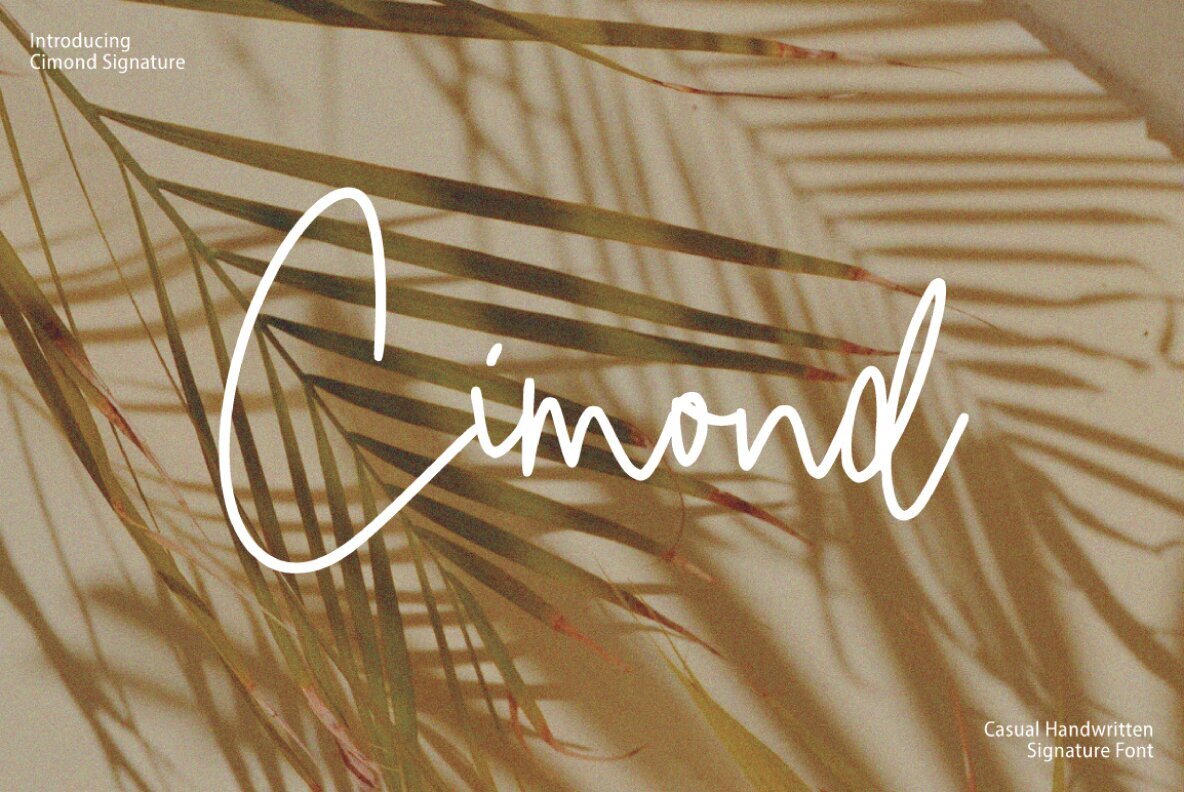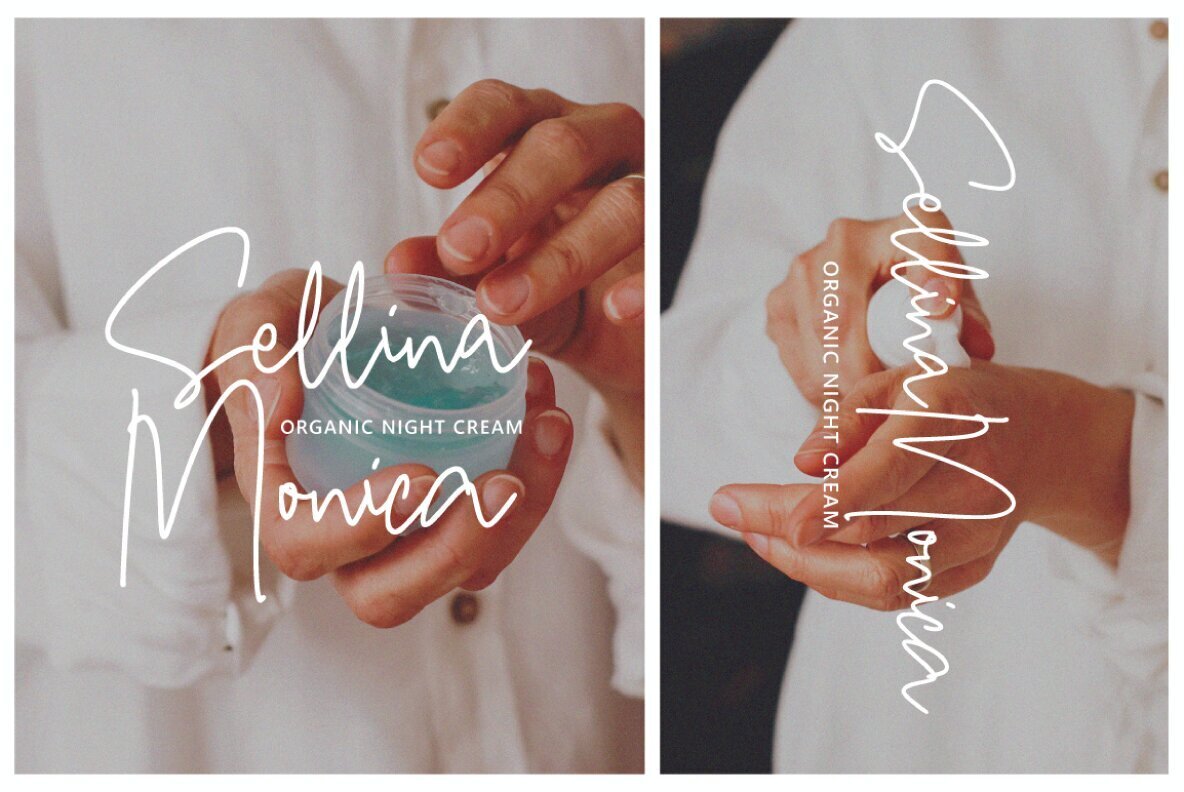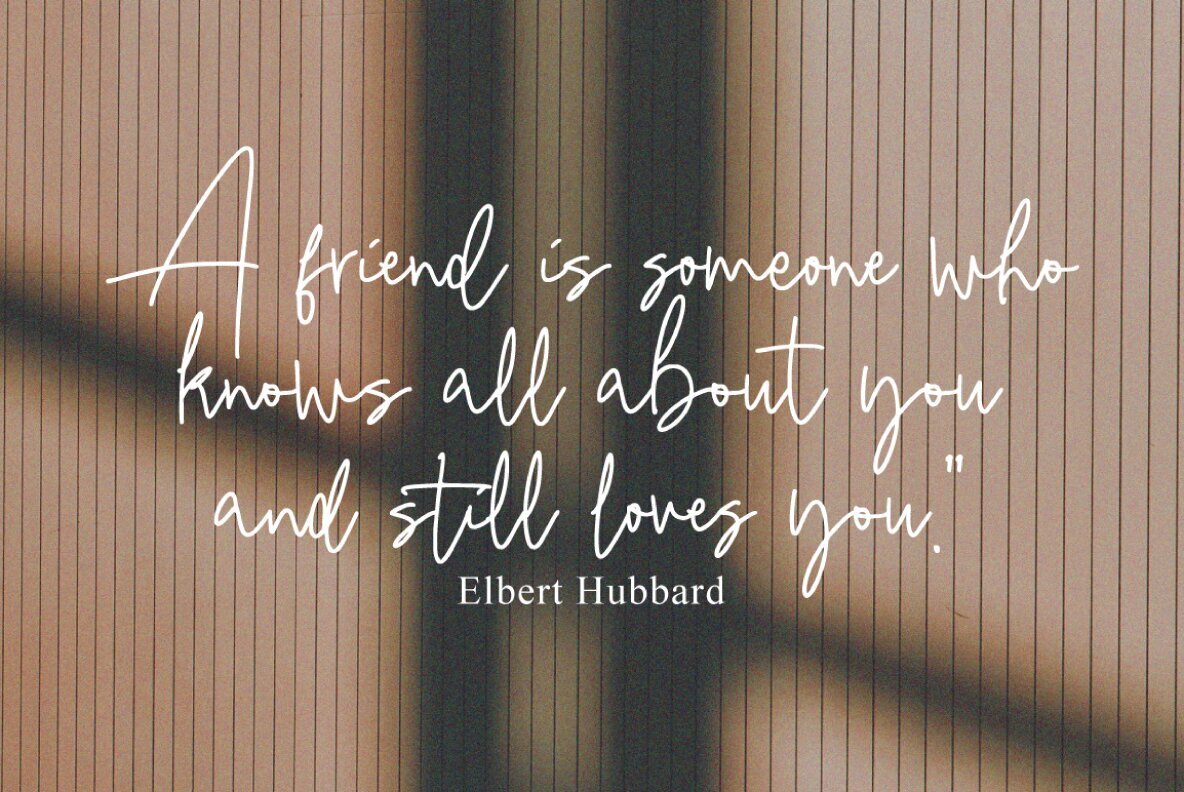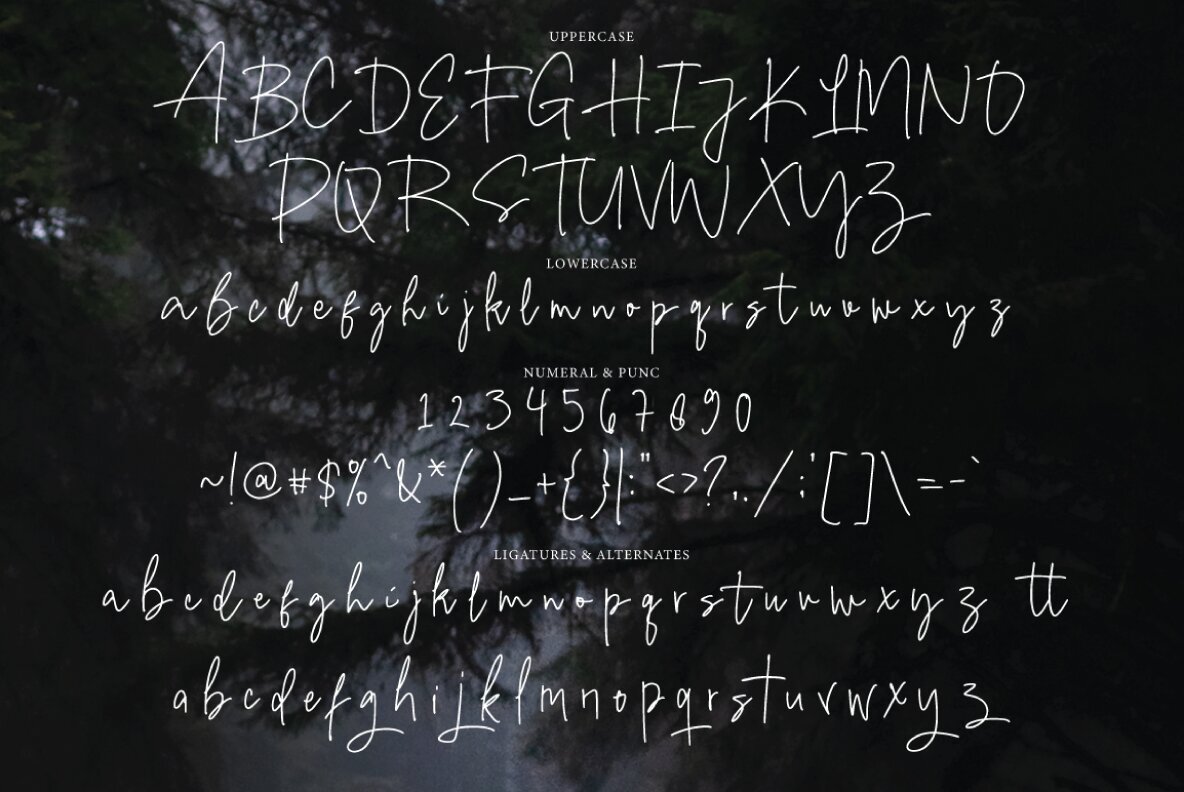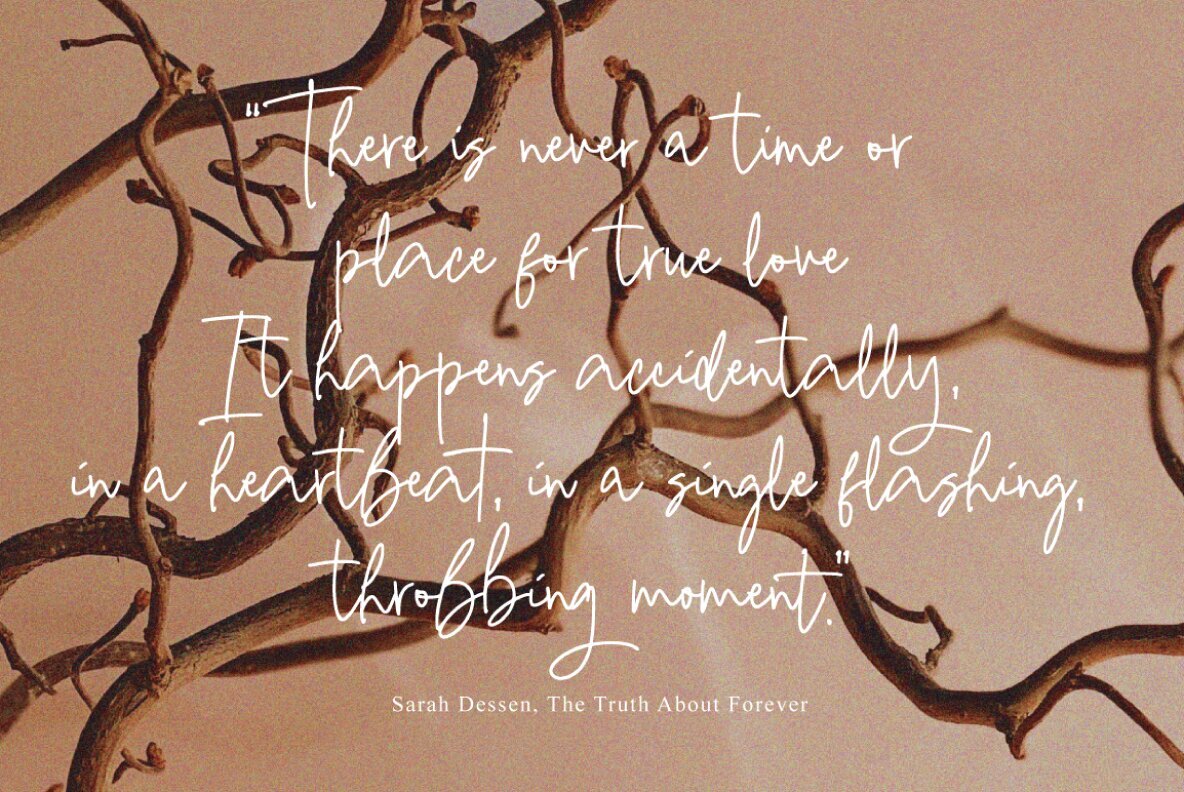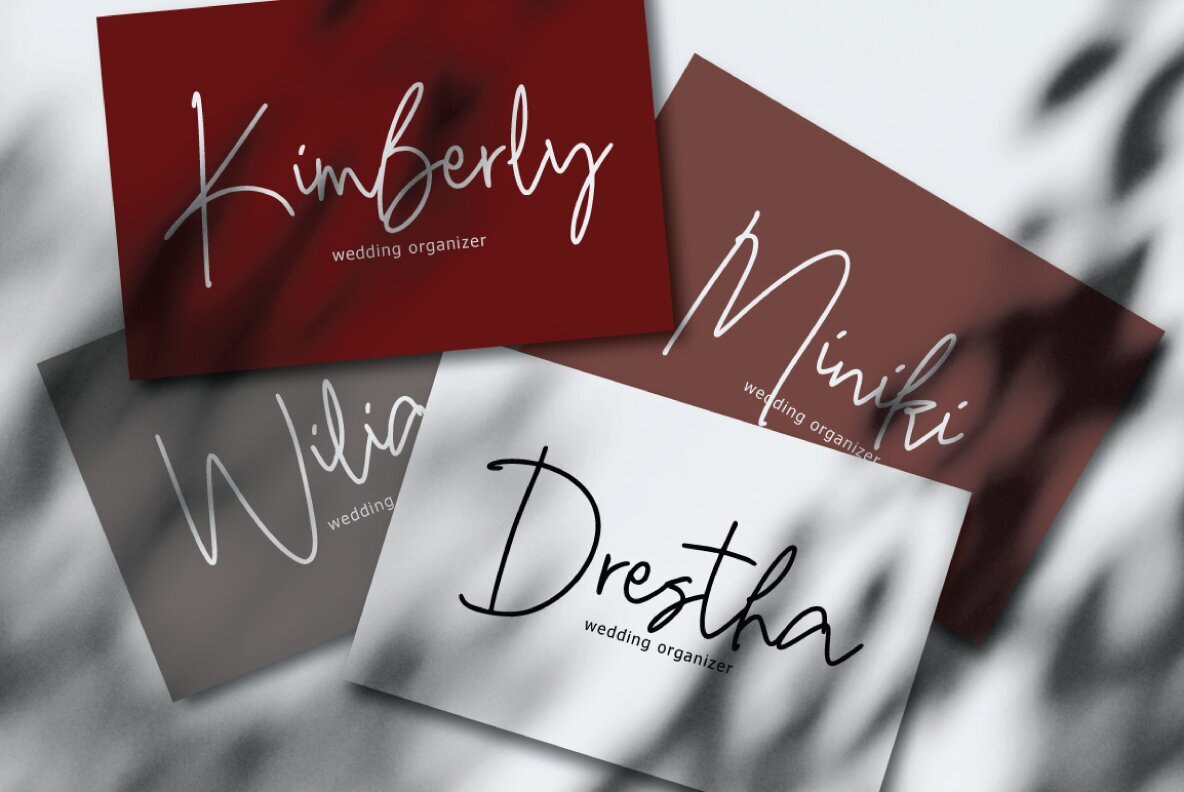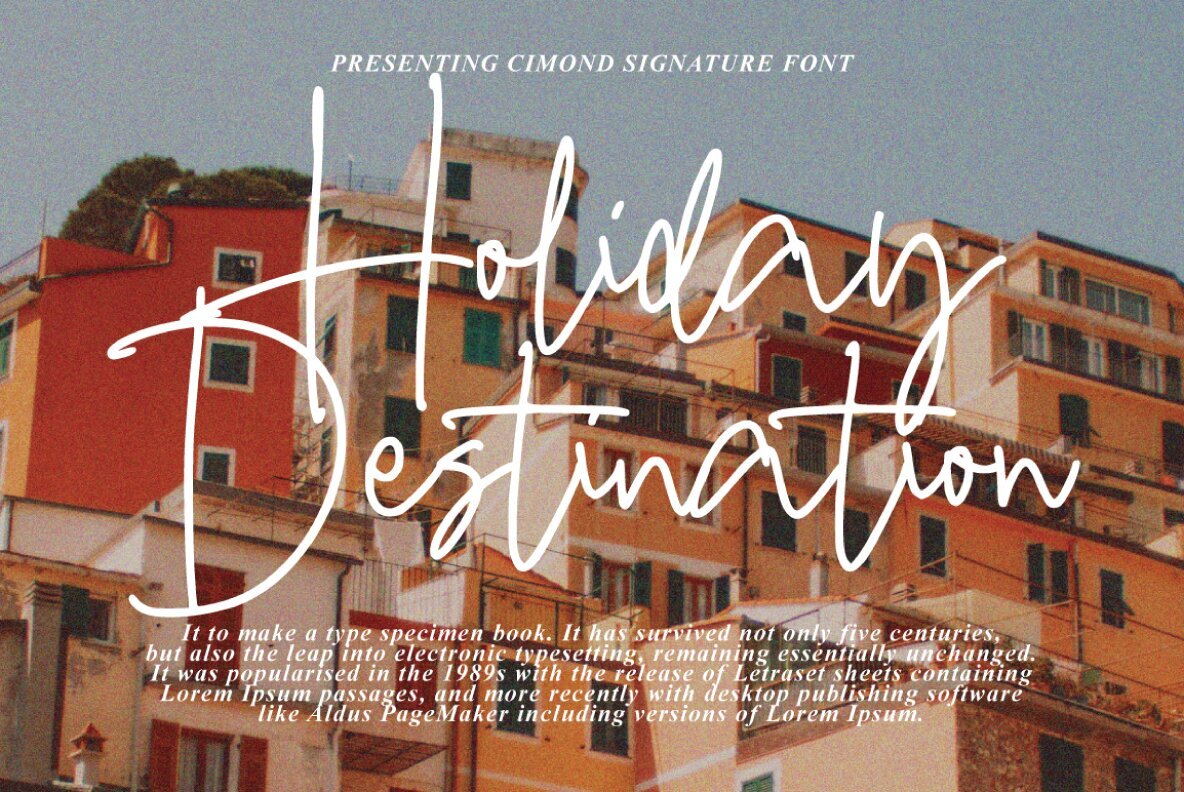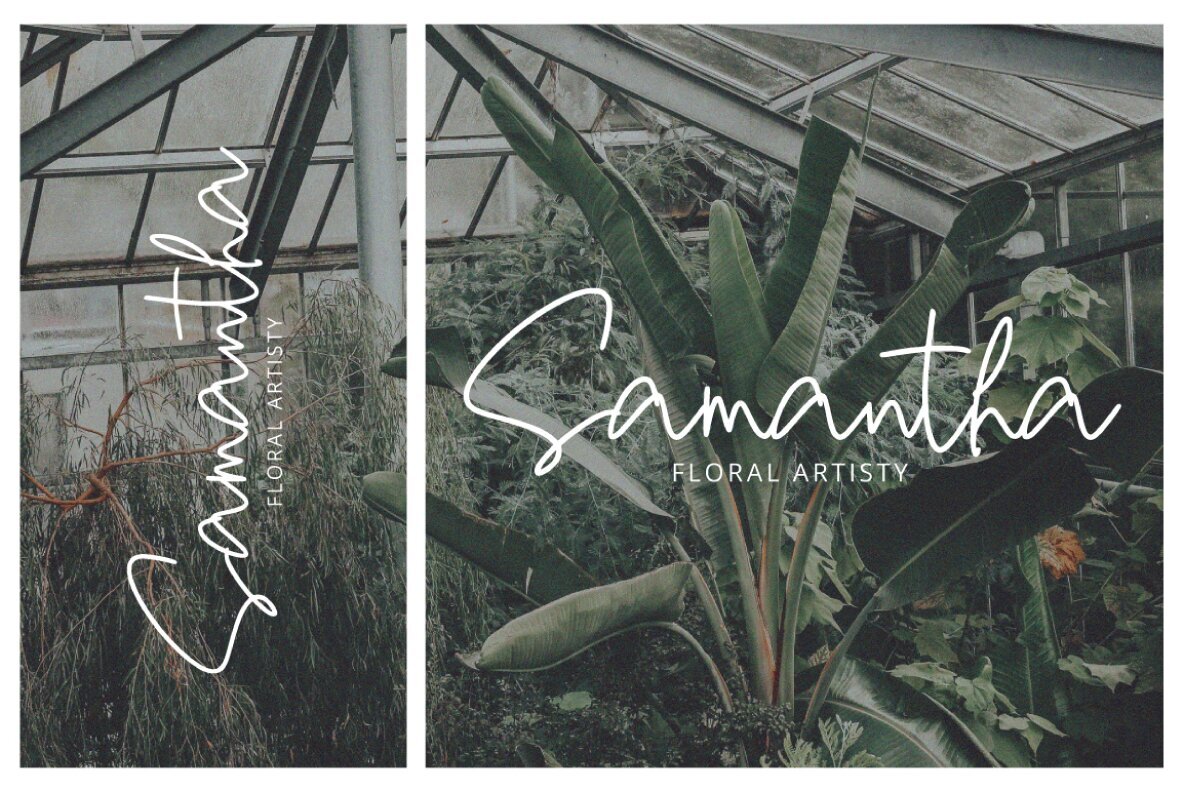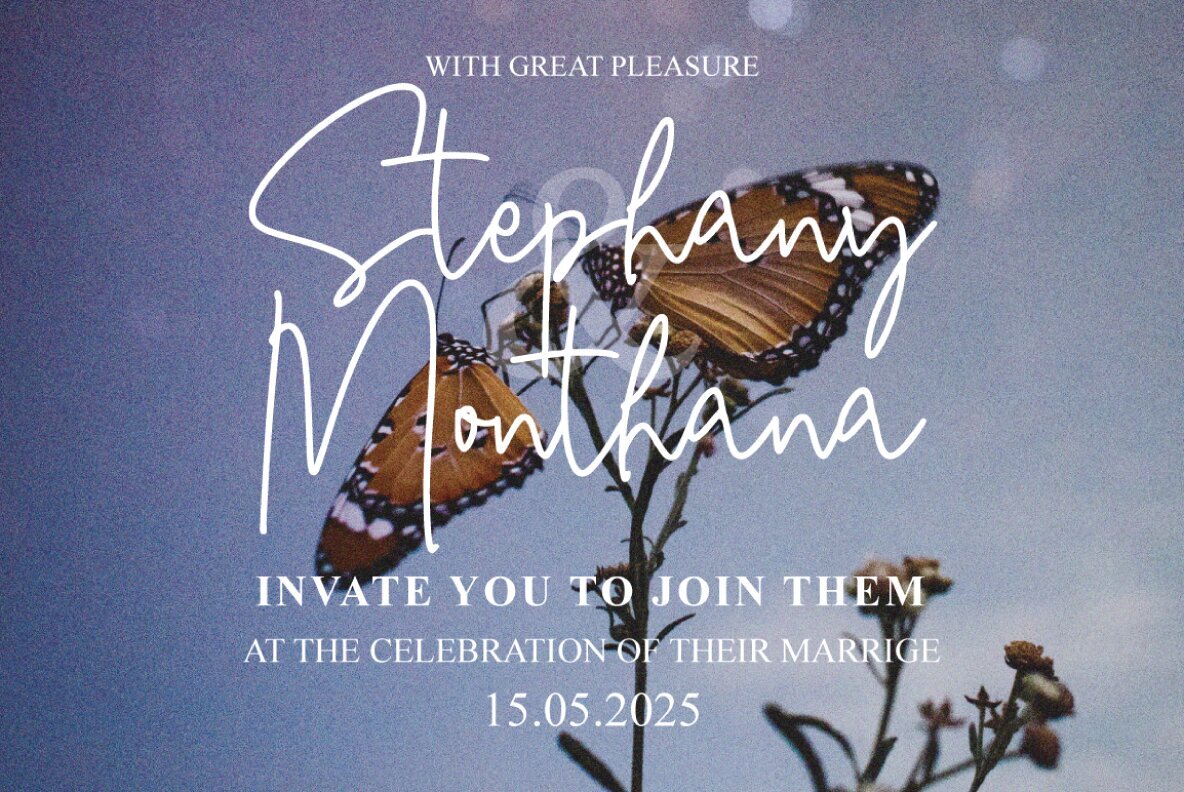
Cimond Signature Font
The Cimond Signature font integrates a handcrafted aesthetic with decorative characters and a captivating dancing baseline. Its elegance enhances a variety of projects, making it desirable for invitations, greeting cards, branding materials, business cards, quotes, posters, and more. With over 200 glyphs, Cimond Signature offers meticulous detail and sophistication. This typeface features several OpenType characteristics, including Swash, Stylistic Sets, Stylistic Alternates, and Ligatures. These can be accessed via OpenType-savvy software such as Adobe Illustrator, Adobe InDesign, Adobe Photoshop, Corel Draw X, and even Microsoft Word. The font is PUA-encoded, ensuring all alternate characters are fully accessible to any designer or artisan. For those without OpenType-supporting programs, alternate glyphs can still be accessed via Font Book (Mac) or Character Map (Windows), ensuring usability across diverse platforms.Cimond Signature: Elegant and Expressive Handcrafted Style